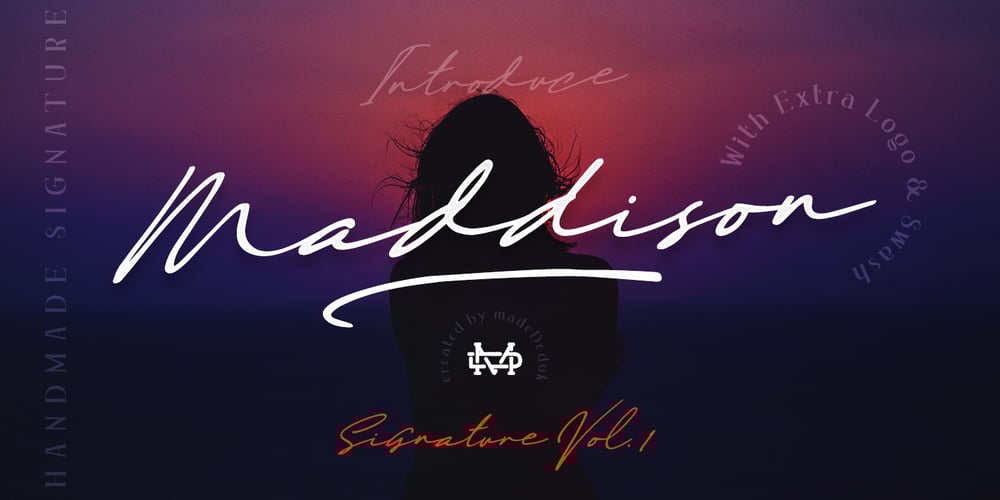
Maddison Signature Font Family was designed by Suandana ipandemade and published by madeDeduk. Maddison Signature contains 2 styles and family package options. Introducing Maddison, a gorgeous handmade signature font. Maddison signature includes more than 170 ligatures to make everything look natural handmade signature.This font perfect for poster design, book covers, merchandise, fashion campaigns, newsletters, branding, advertising, magazines, greeting cards, album covers, and quote designs and more. Whats Included? – Maddison Signature – Maddison Oblique – Extra Features – UPPERCASE – lowercase – Number & Symbol – International Glyphs – Ligature – Extra